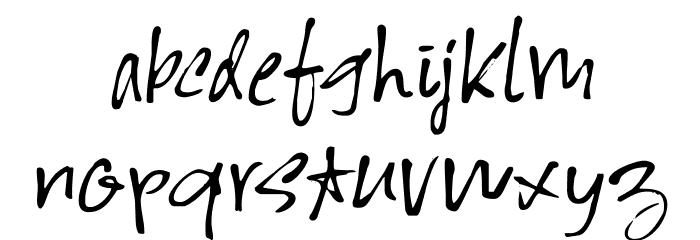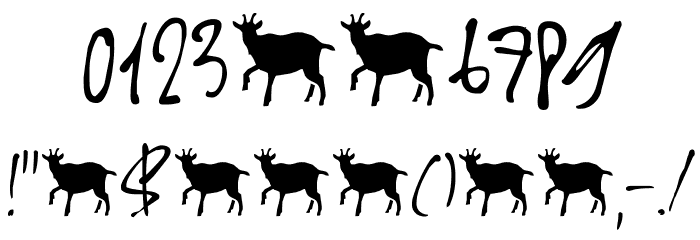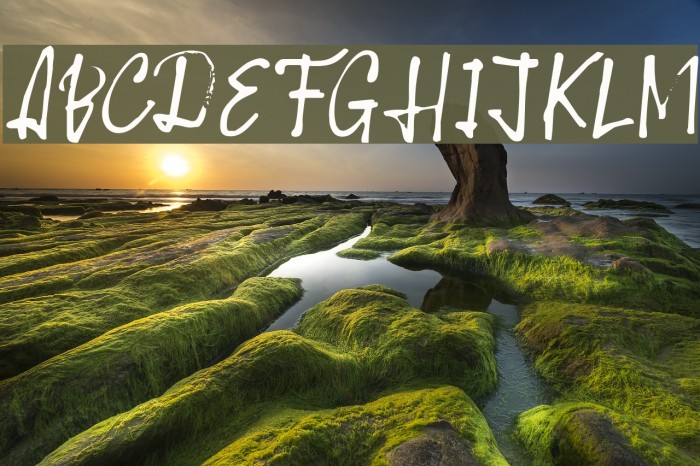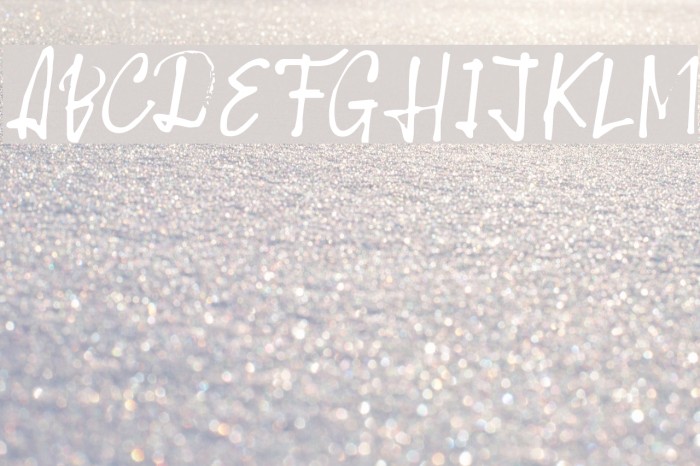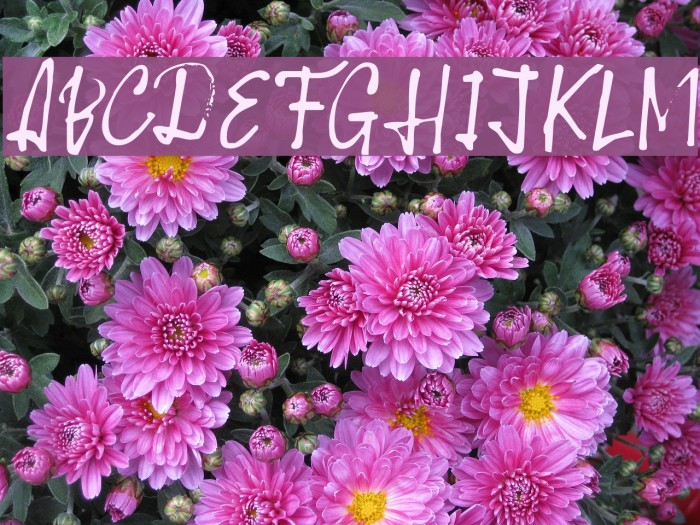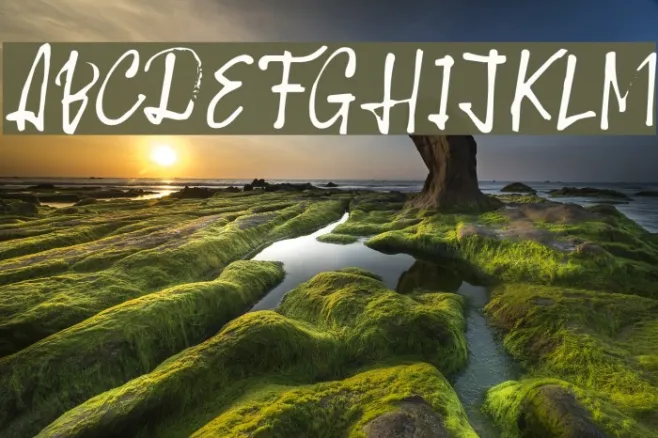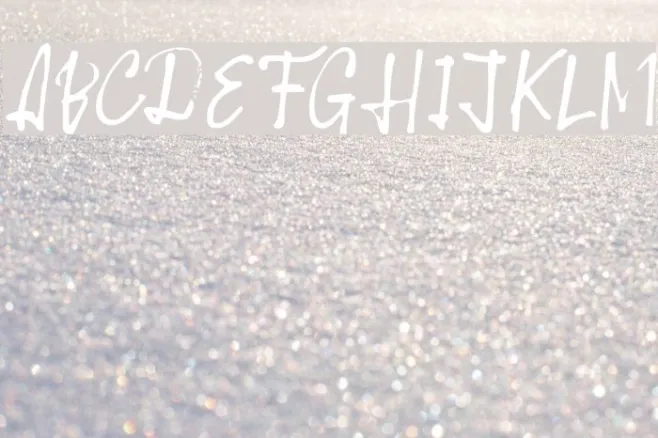
Scapegoat DEMO Regular Font
This font features a dynamic and expressive handwritten style, characterized by its fluid and slightly irregular strokes. The uppercase letters exhibit a bold and confident presence, while the lowercase letters maintain a casual and approachable feel. The numerals are distinct and maintain the playful nature of the font. Special characters are creatively integrated, adding to the font's unique personality. The overall design is reminiscent of artistic brush strokes, providing a sense of movement and energy. This font is ideal for projects that require a personal touch or a creative flair.
A dynamic and expressive handwritten font with fluid strokes.
- Proposed Projects: Ideal for creative projects such as invitations, posters, branding, and artistic designs.
- Use Case: Logos, Headlines, Artistic designs